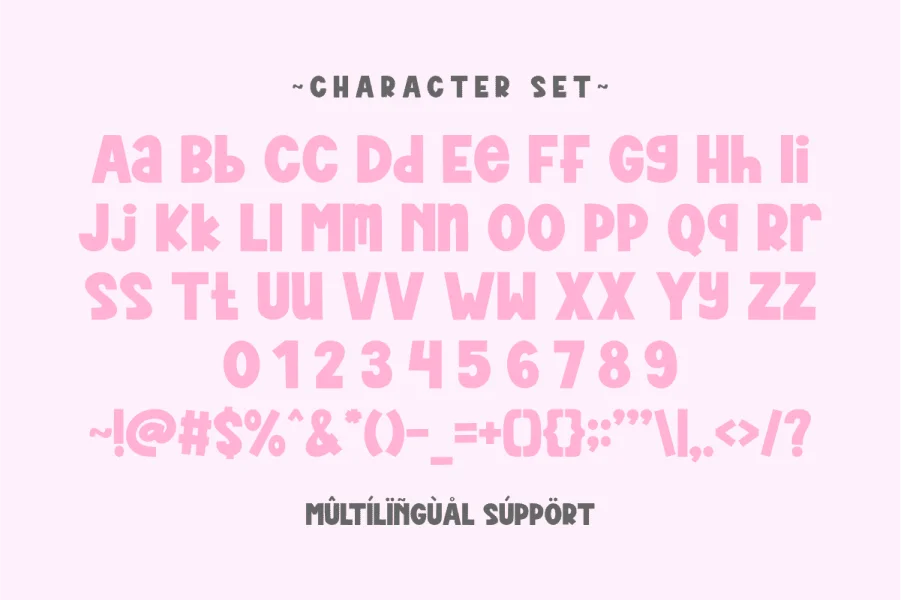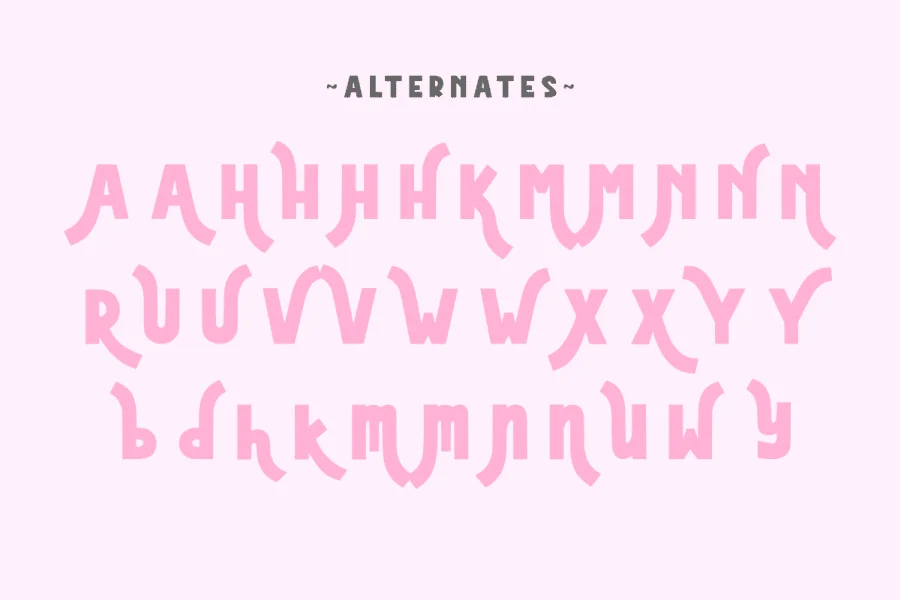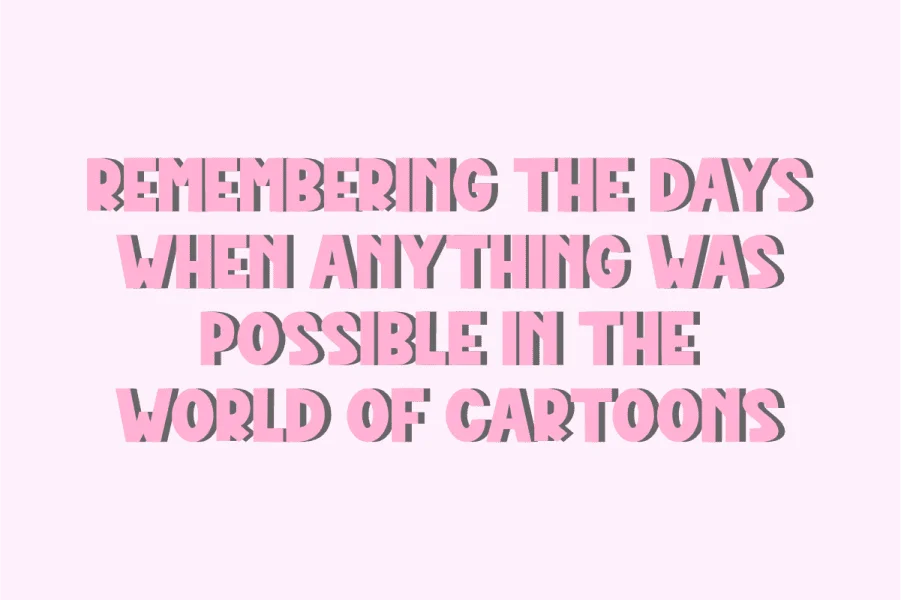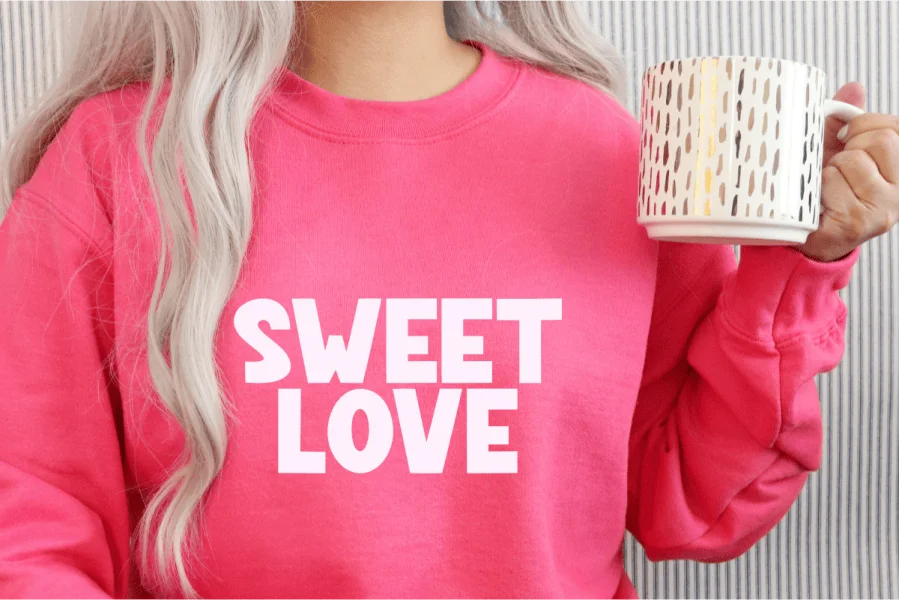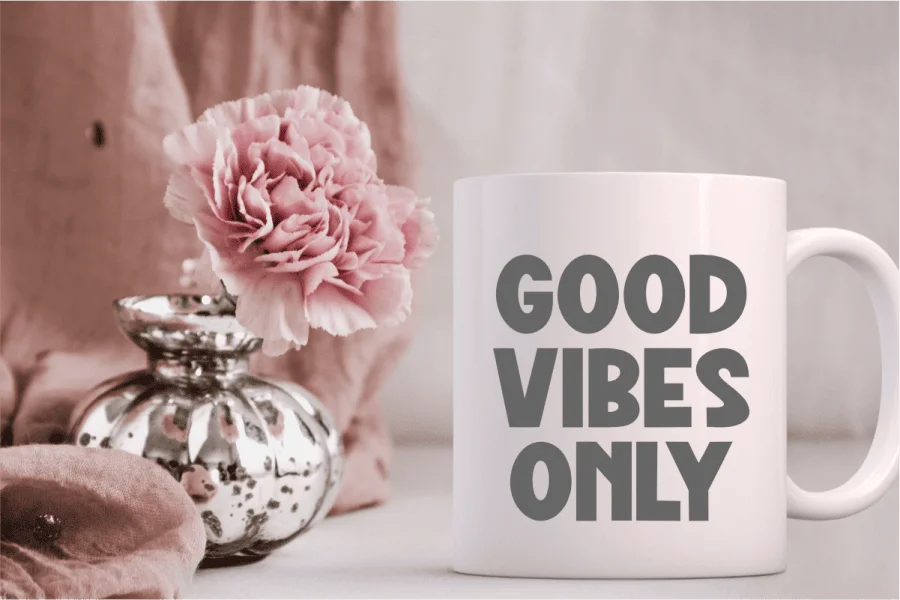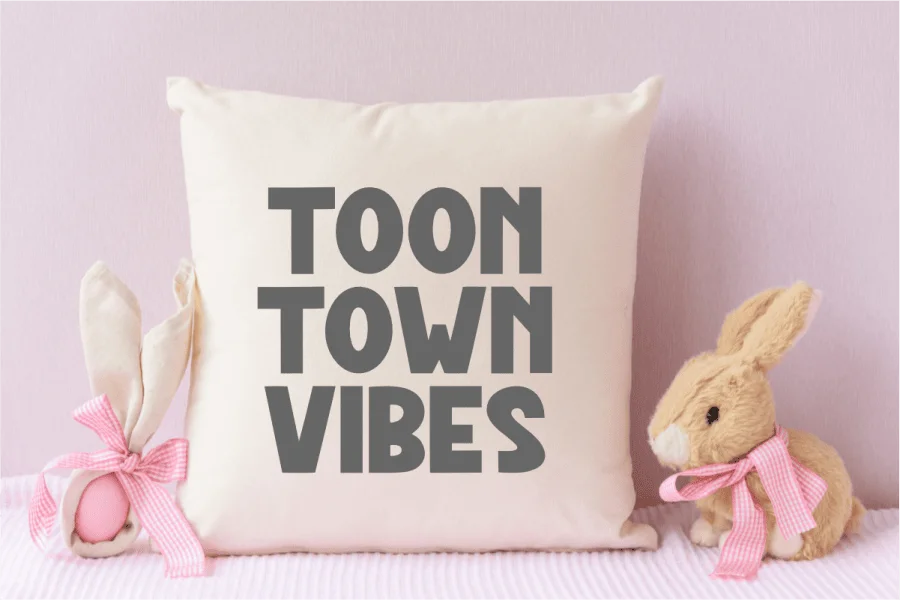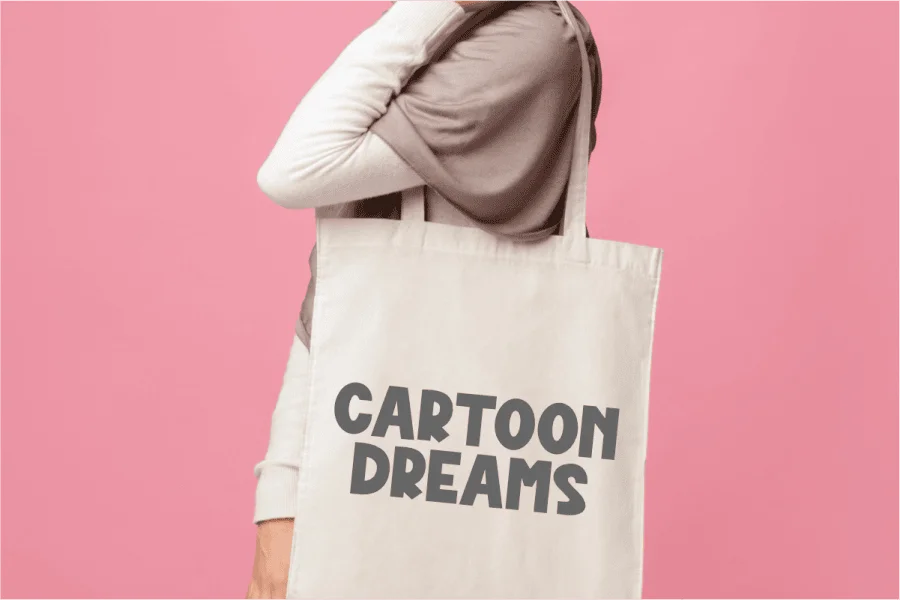
Cartoon Vibes is a playful and stylish cartoon quirky font designed to bring charm and creativity to your projects! Whether you're a crafter, small business owner, or designer, this font is perfect for adding a cute, aesthetic, and professional touch to your work.
💖 Perfect for:
✔ Crafting & DIY – Cricut, Silhouette, scrapbooking, and handmade projects
✔ Print-on-Demand (POD) – T-shirts, mugs, tumblers, stickers, and more
✔ Branding & Business – Etsy shops, social media, and creative logos
✔ Journaling & Planners – Digital planners, bullet journals, and creative quotes